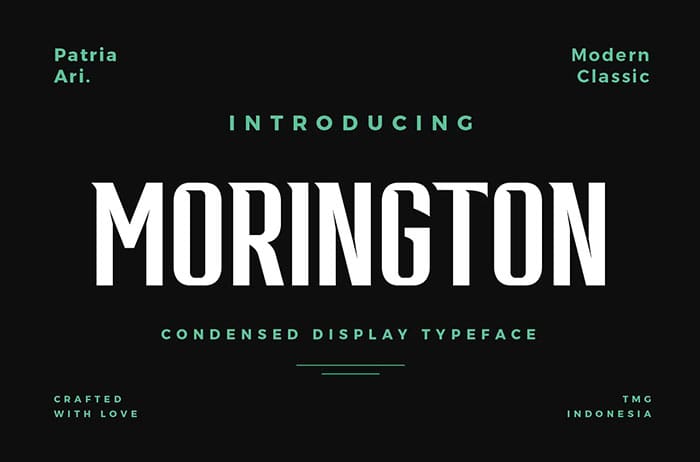
Morington Display Font
Morington is condensed Display Font with strong characters to support your brand/project. This font can be used in modern theme and also in classic theme. Thanks to Patria Ari Typestudio for sharing this font! Take a look at this portfolio for more of his stunning fonts.